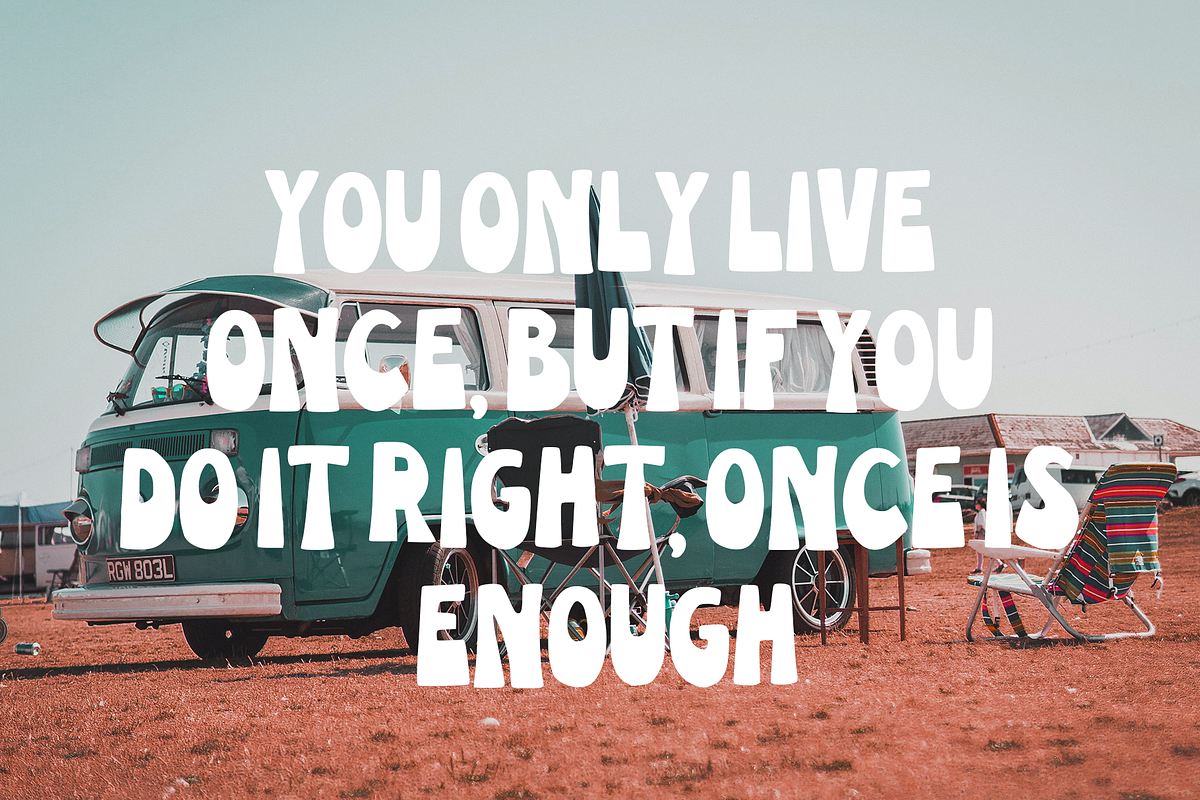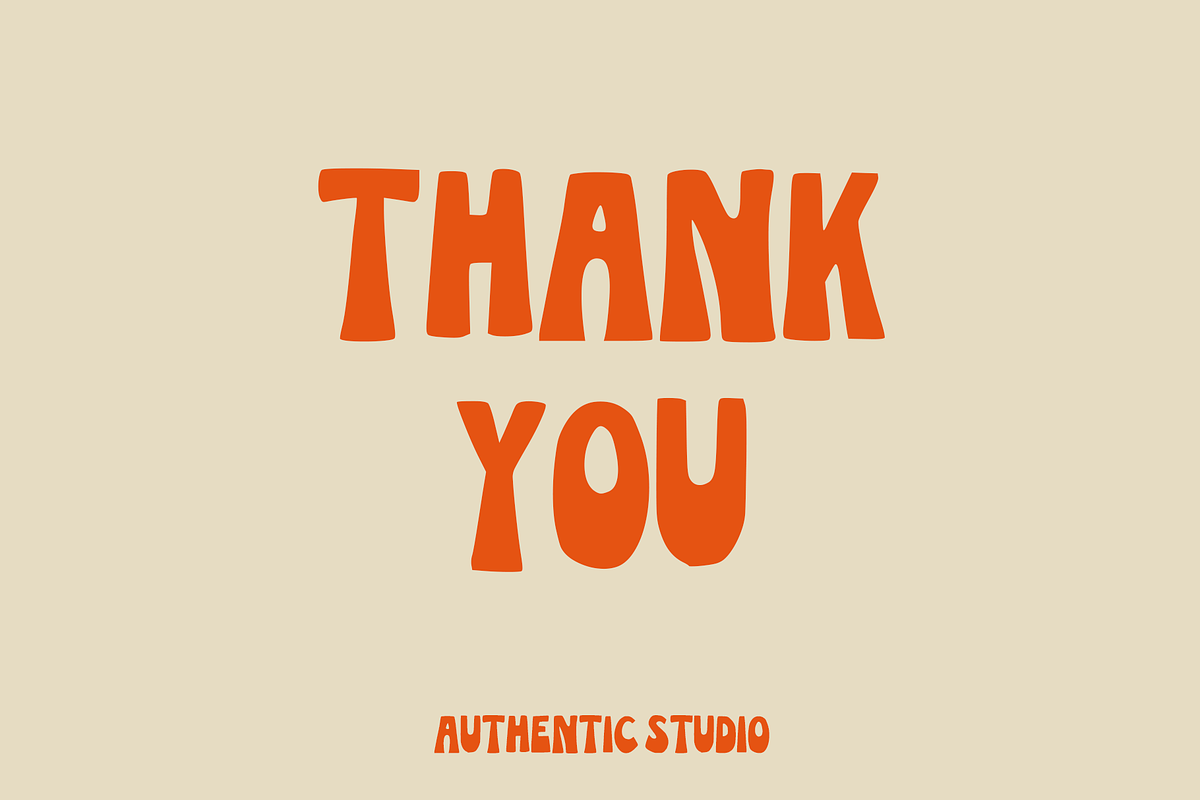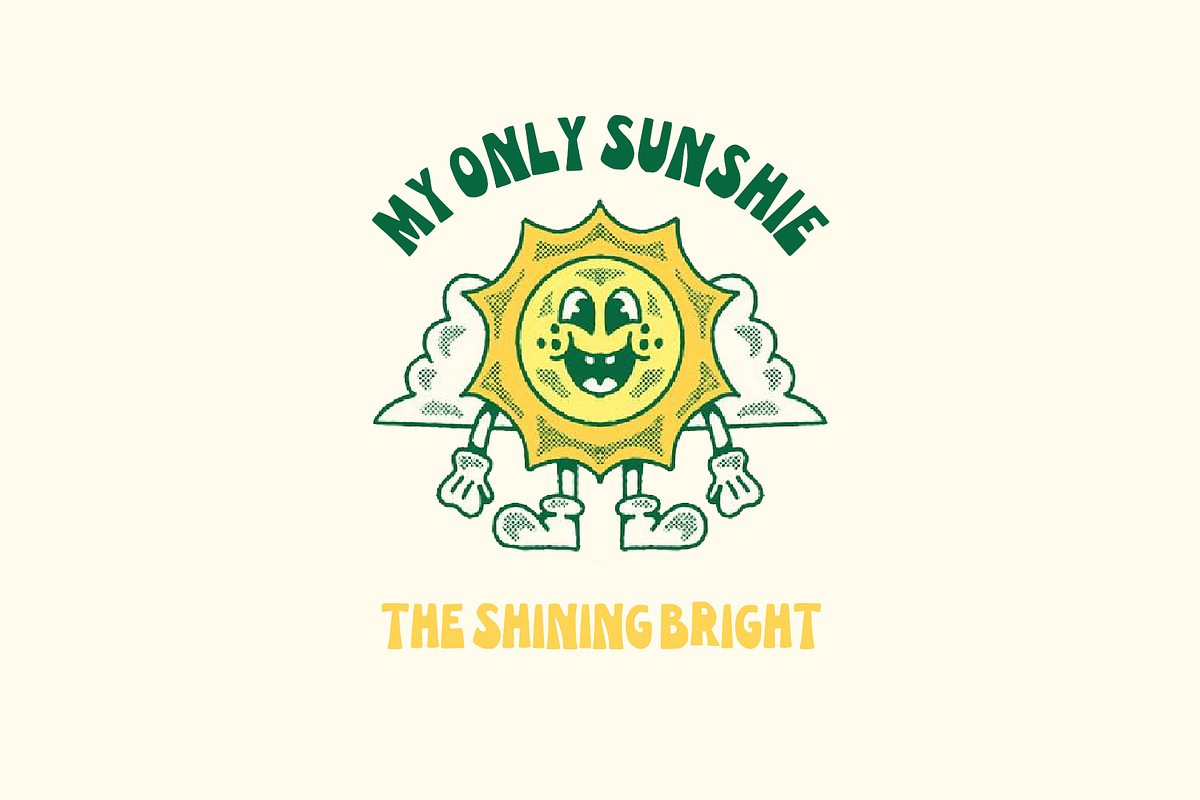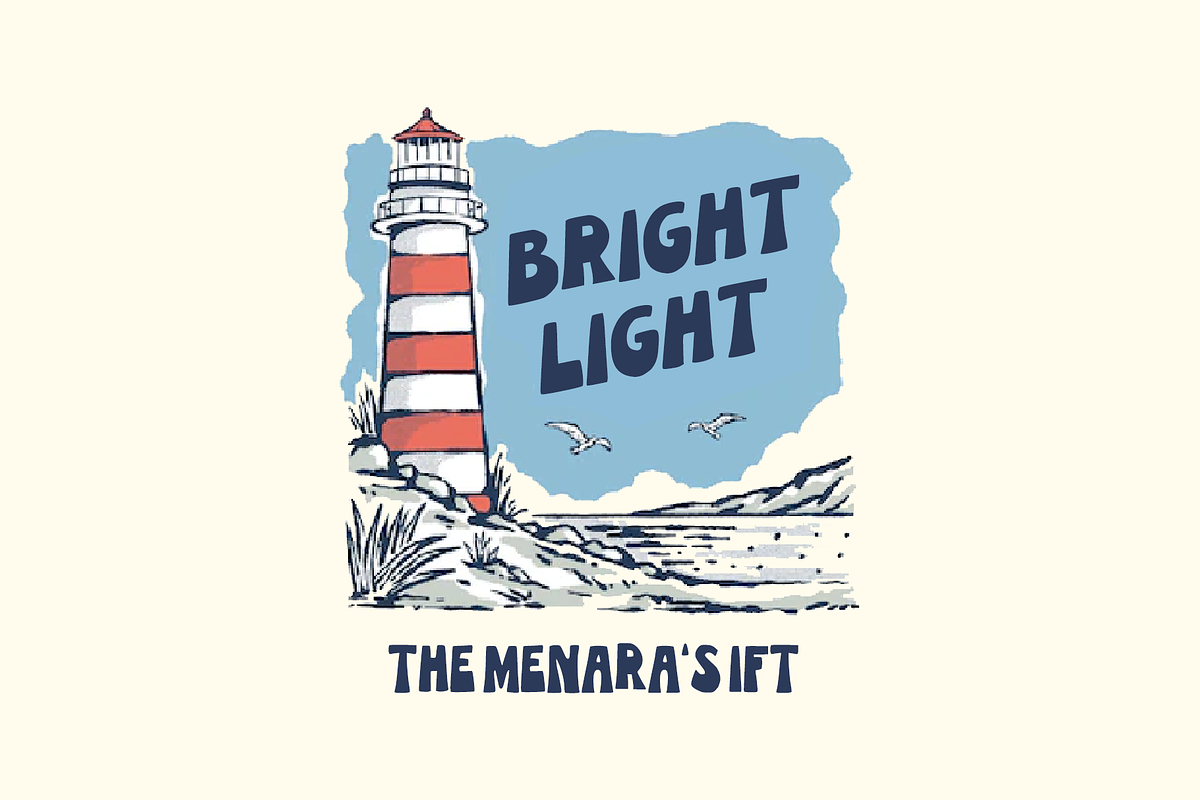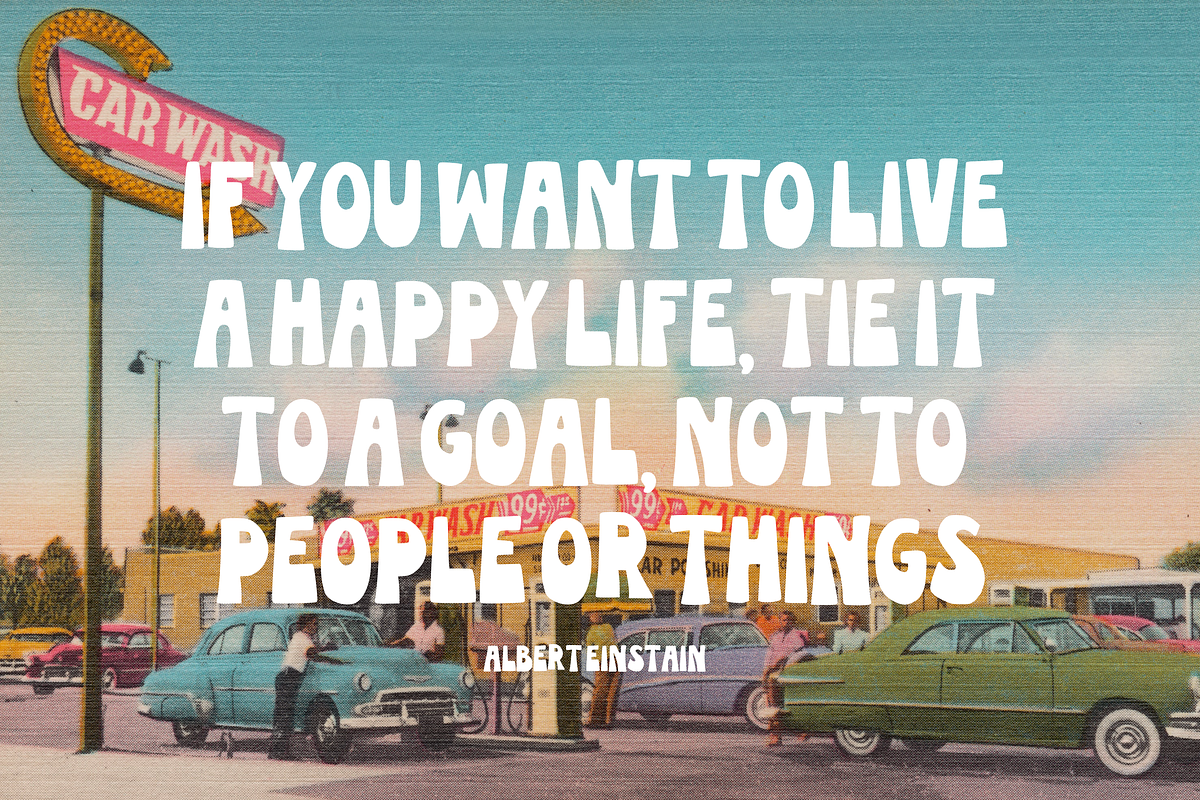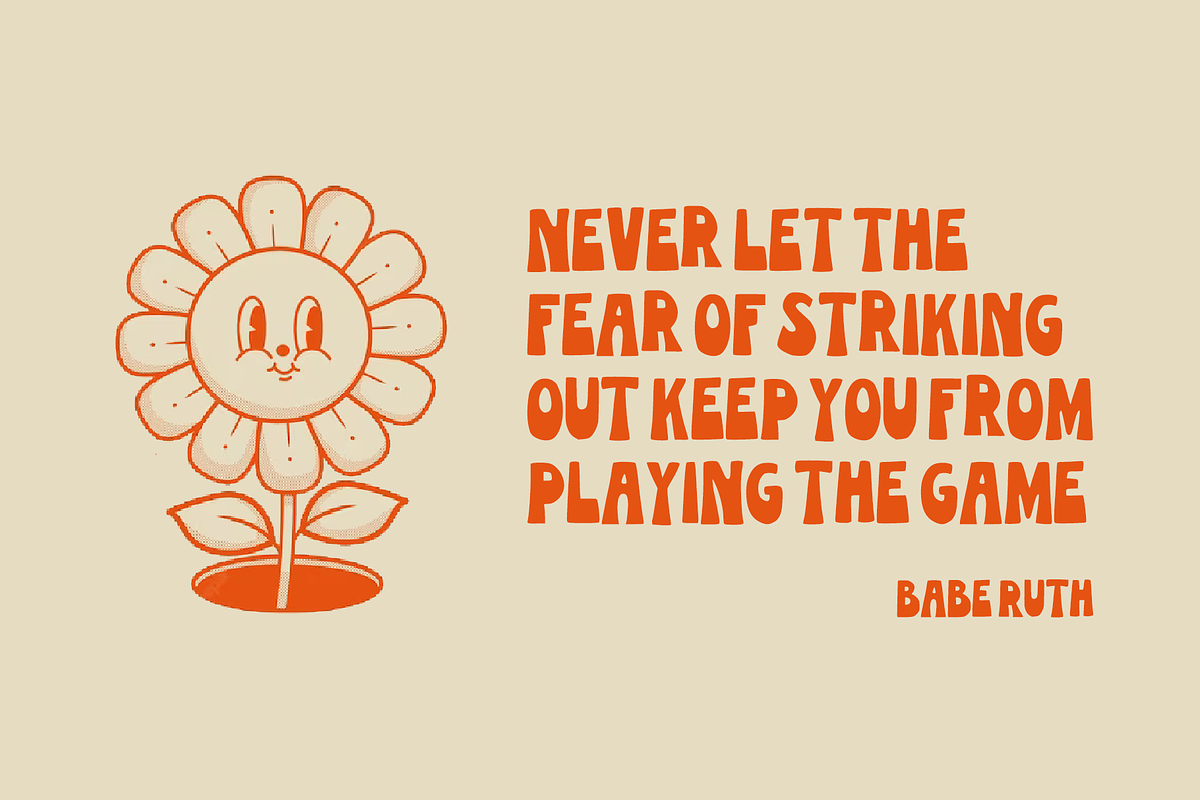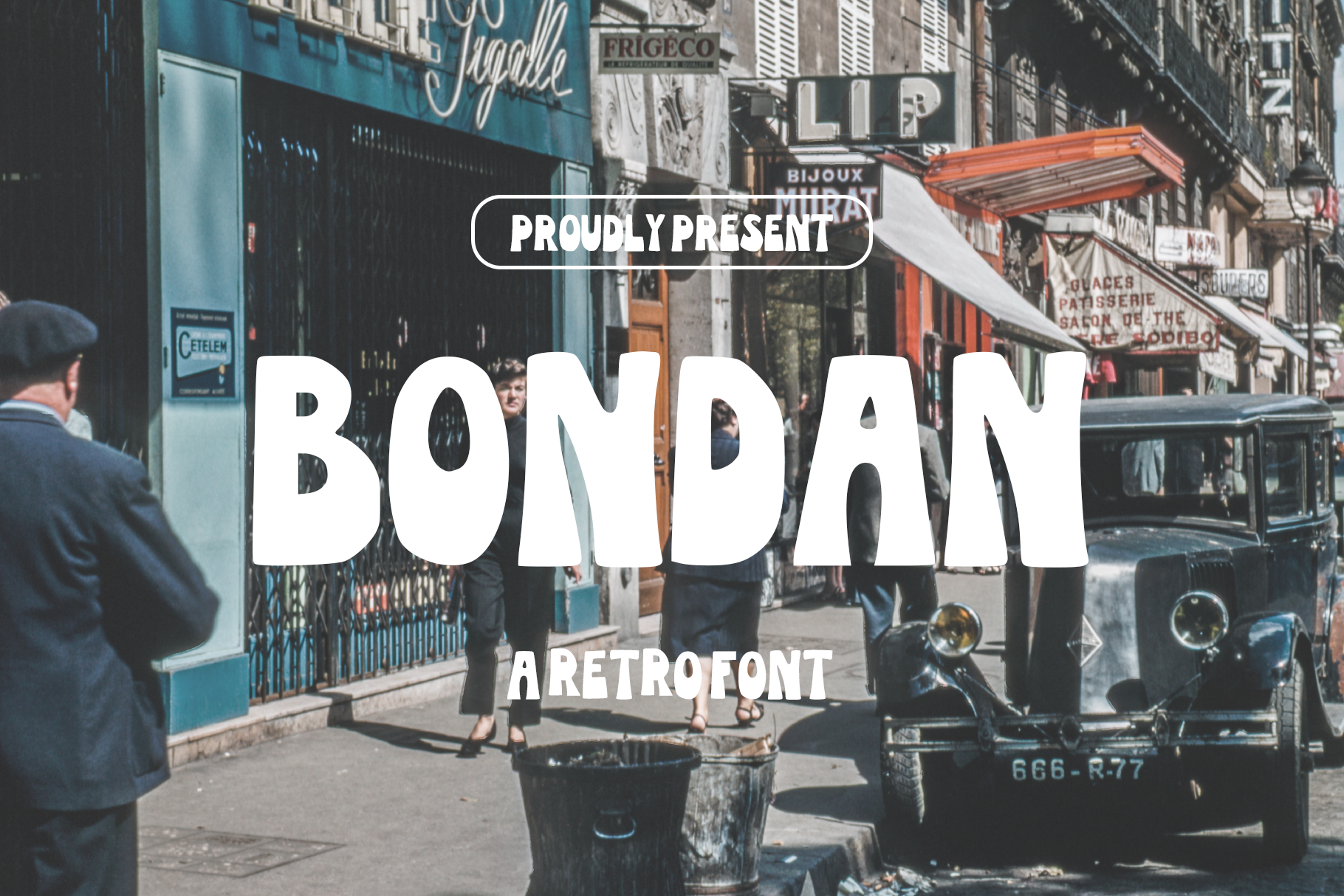
Bondan Display Font
Hi friend. This is the Bondan Display Font. Come wiht aesthetic and vintage shape that fits all your design needs. Hope you enjoy